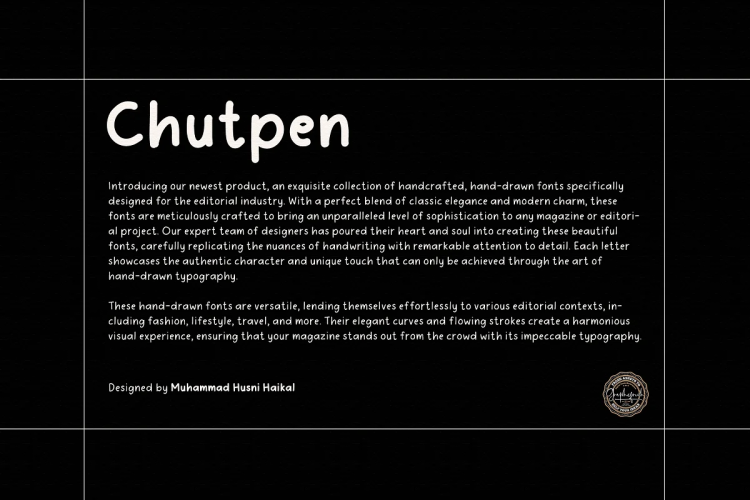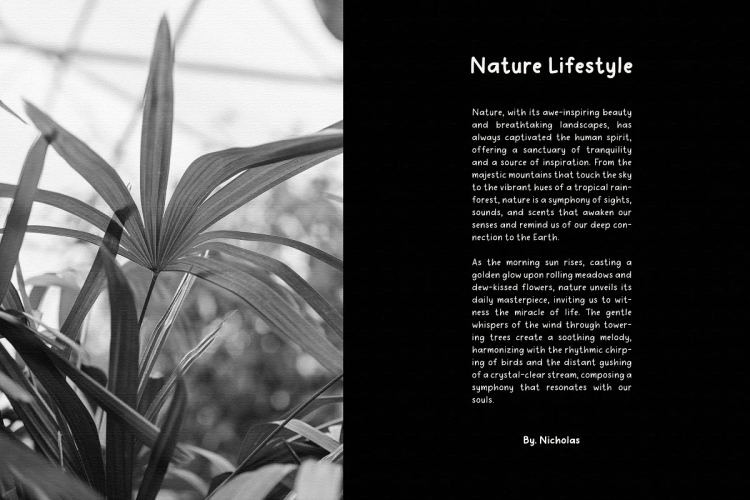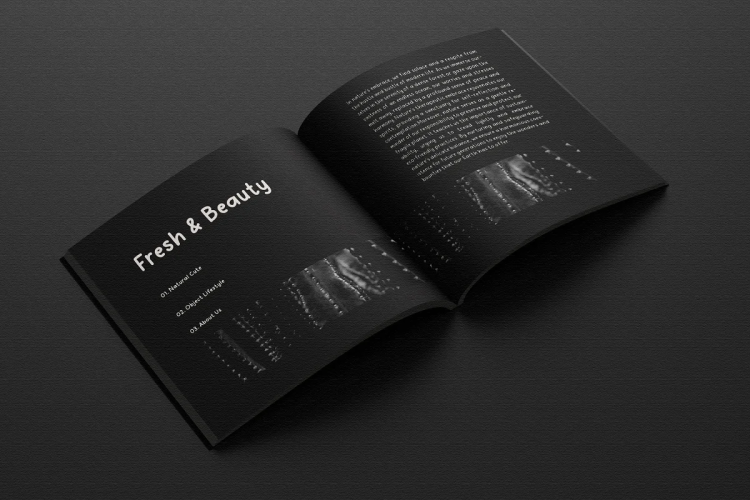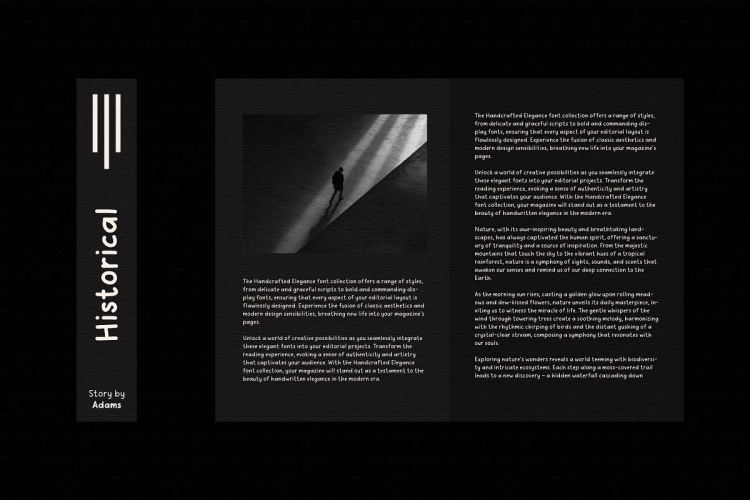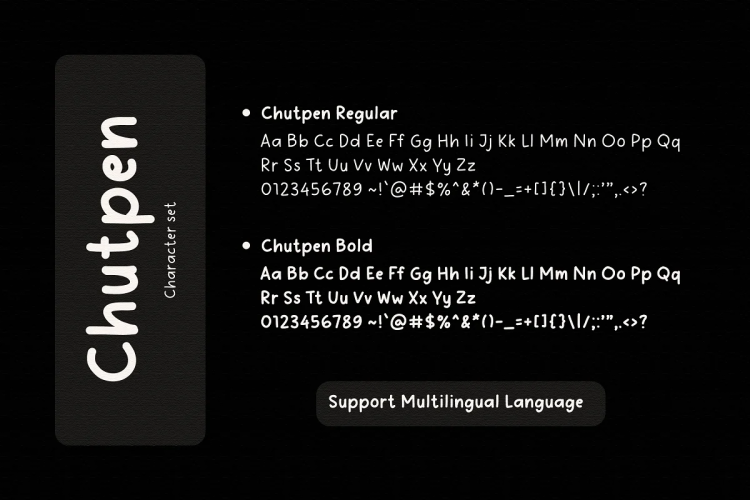
Chutpen – The Editorial Font
Introducing our Handwriting Font Editorial: a classic yet modern and elegant typeface inspired by the charm of handdrawn letters. This versatile font is perfect for adding a touch of sophistication to your magazine layouts. With its meticulously crafted curves and stylish strokes, our Handwriting Font Editorial will elevate your designs and captivate your readers, making it an essential tool for any editorial project. Embrace the artistry of handwritten fonts and bring a timeless appeal to your publications with our Font.
Chutpen – The Editorial Font is a Script And Handwritten font that brings a professional and versatile look to your projects. Introducing our Handwriting Font Editorial: a classic yet modern and elegant typeface inspired by the charm of handdrawn letters.